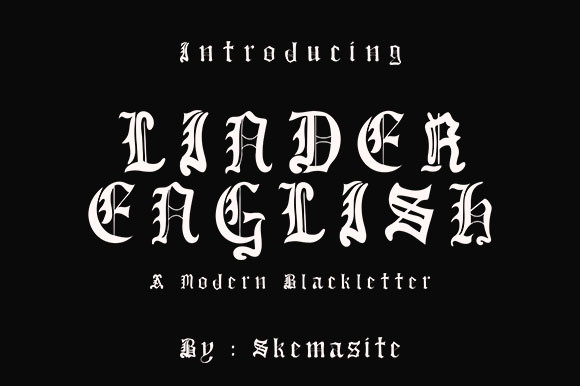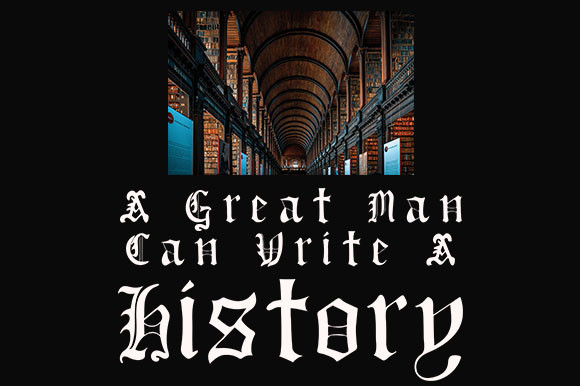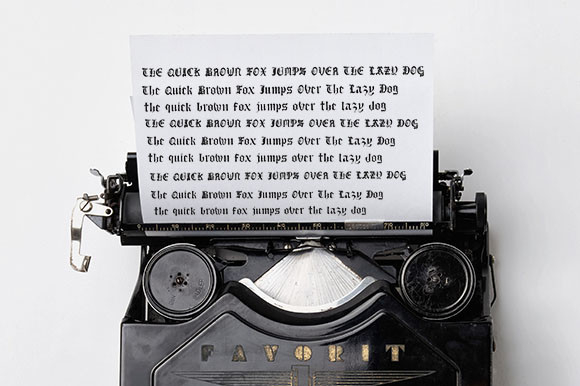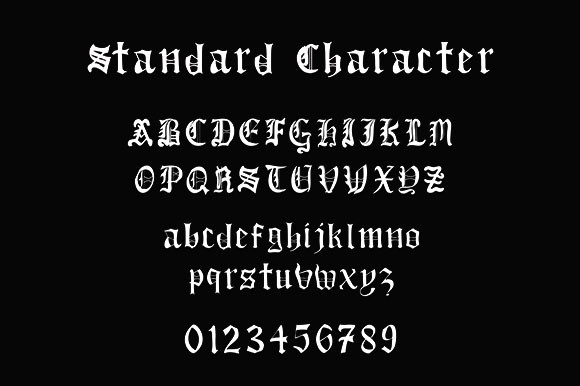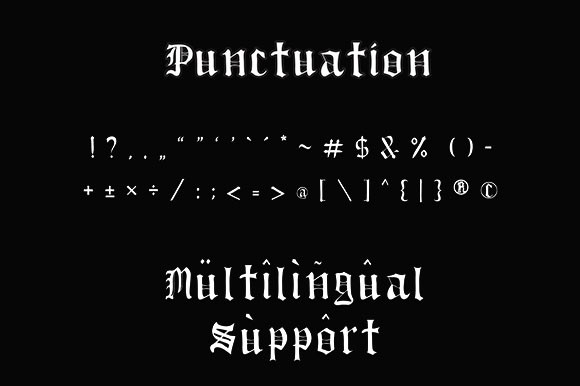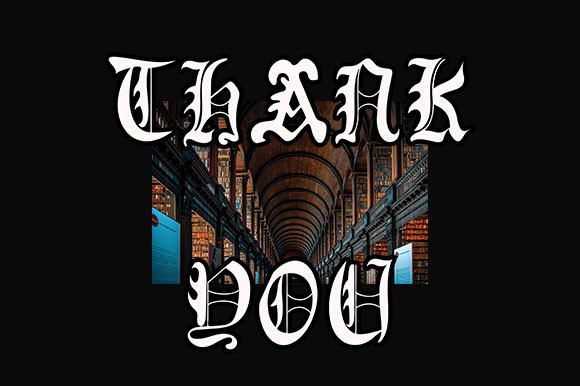
Linder English Font
About Linder English Font
Linder English is a bold blackletter font. This font is neatly crafted and highly detailed. Due to its distinct and assertive vibe, this font works great on labels, branding, logos or apparel.